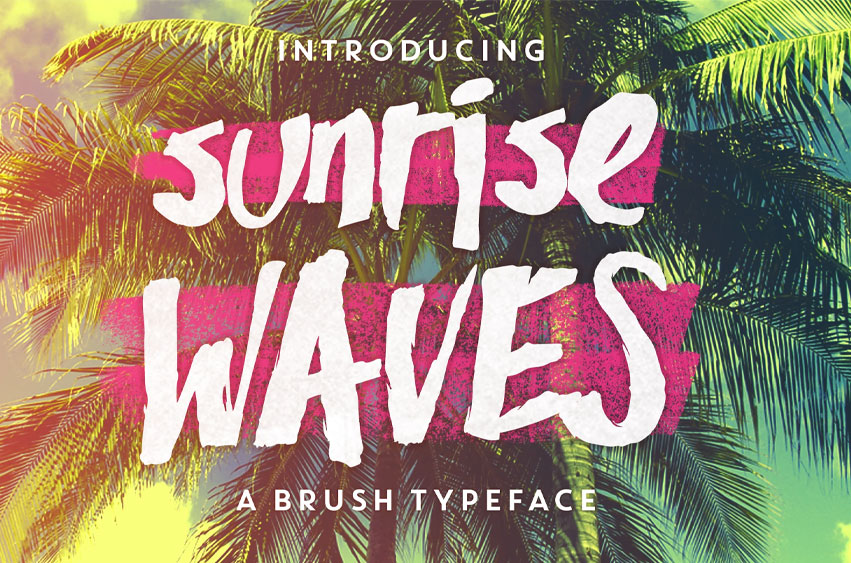
Sunrise Waves Font
Sunrise Waves Font full of good beach vibes! Sunrise Waves is laid back, and perfect in it’s imperfection. It has a variable baseline and works great with all caps.
Great for:
Magazine advertisements Web banners Shop displays T-shirts Greeting cards